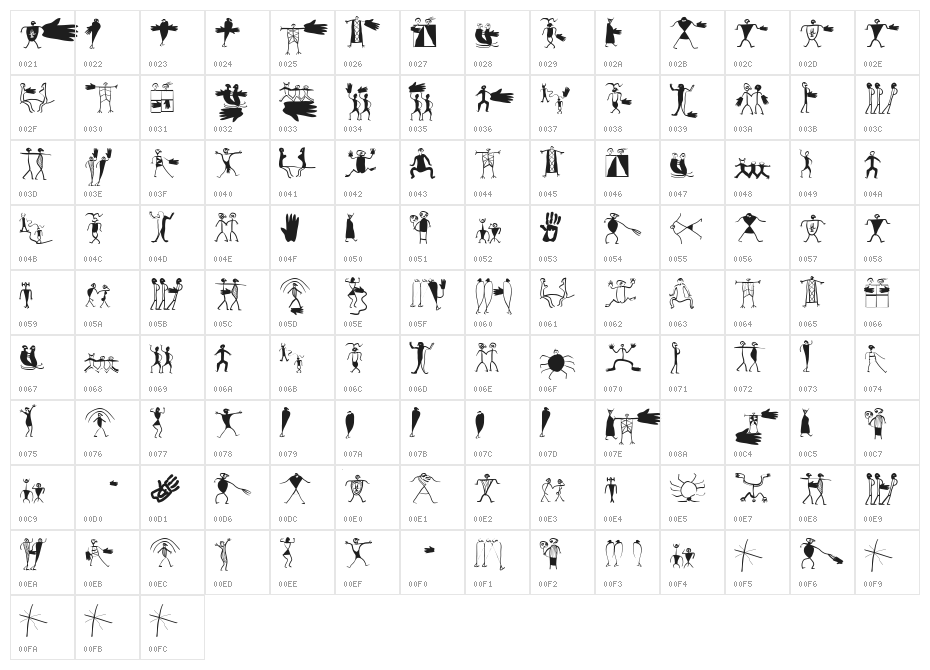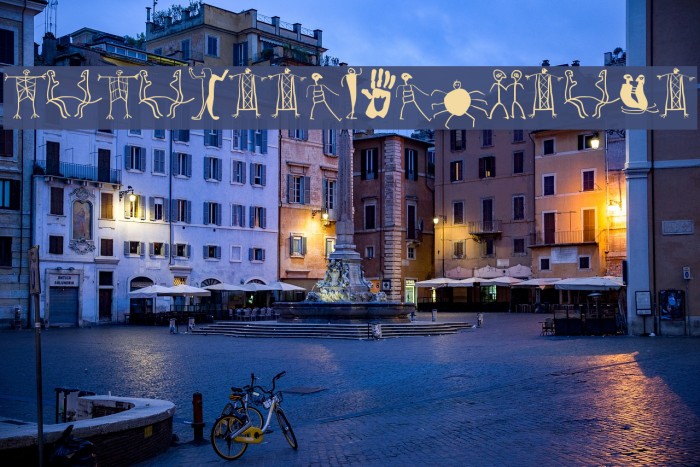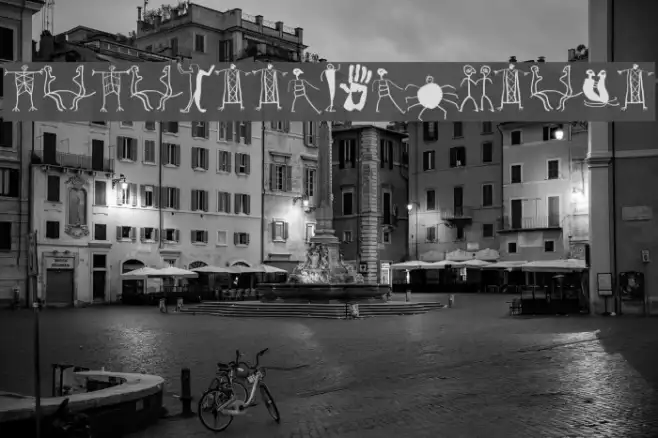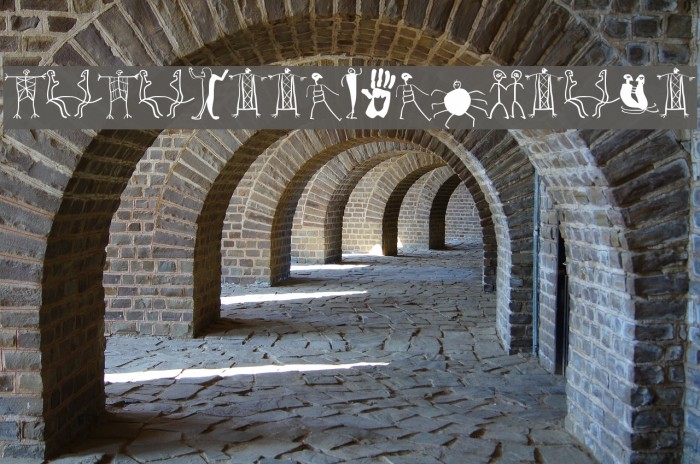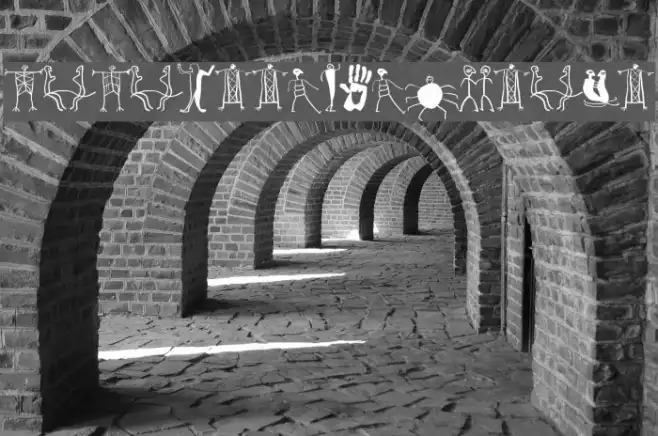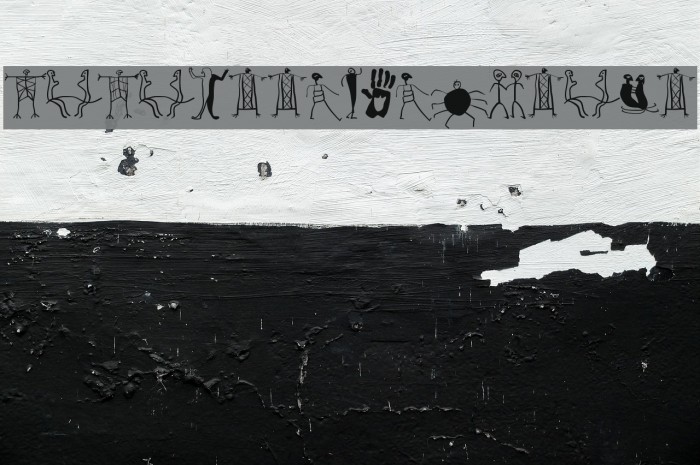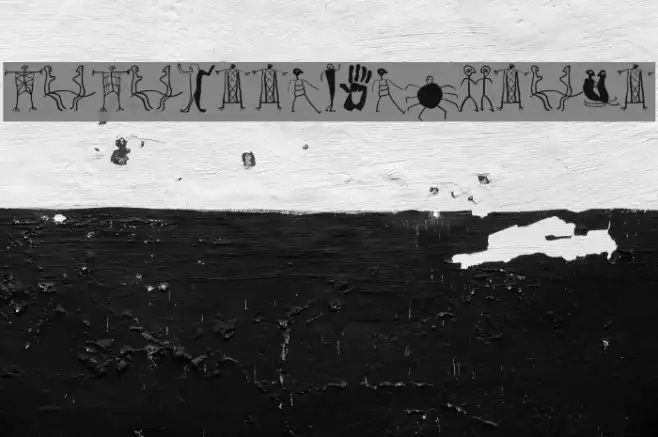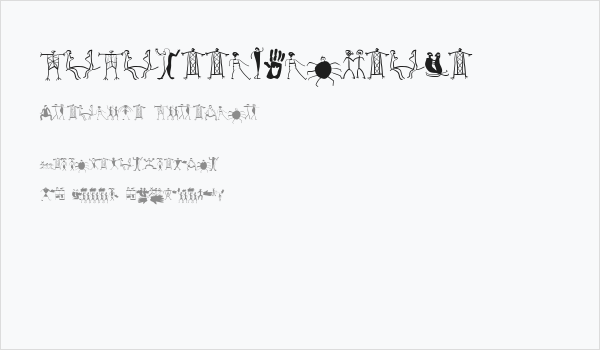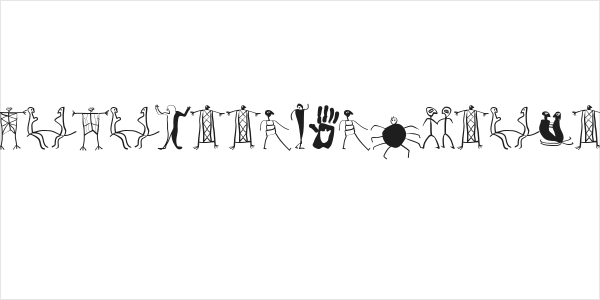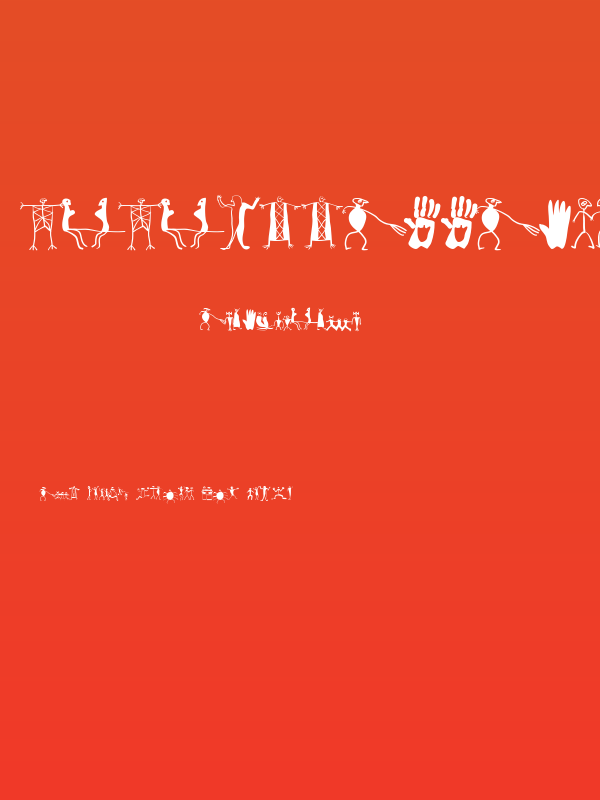
DadaMeetsStoneage Font
DadaMeetsStoneage Description
A highly decorative, pictogram-inspired font featuring playful, abstract human and animal figures reminiscent of cave paintings and Dadaist art. The glyphs are irregular, with varying stroke thickness and whimsical, expressive forms, often incorporating hand shapes and geometric elements.
| Overall Style | Decorative, Primitive, Avant-garde |
| Use Case | Logos, Posters, Headlines, Artistic projects |
| Proposed Projects | Children's books, art posters, music album covers, event branding, educational materials, creative advertising. |